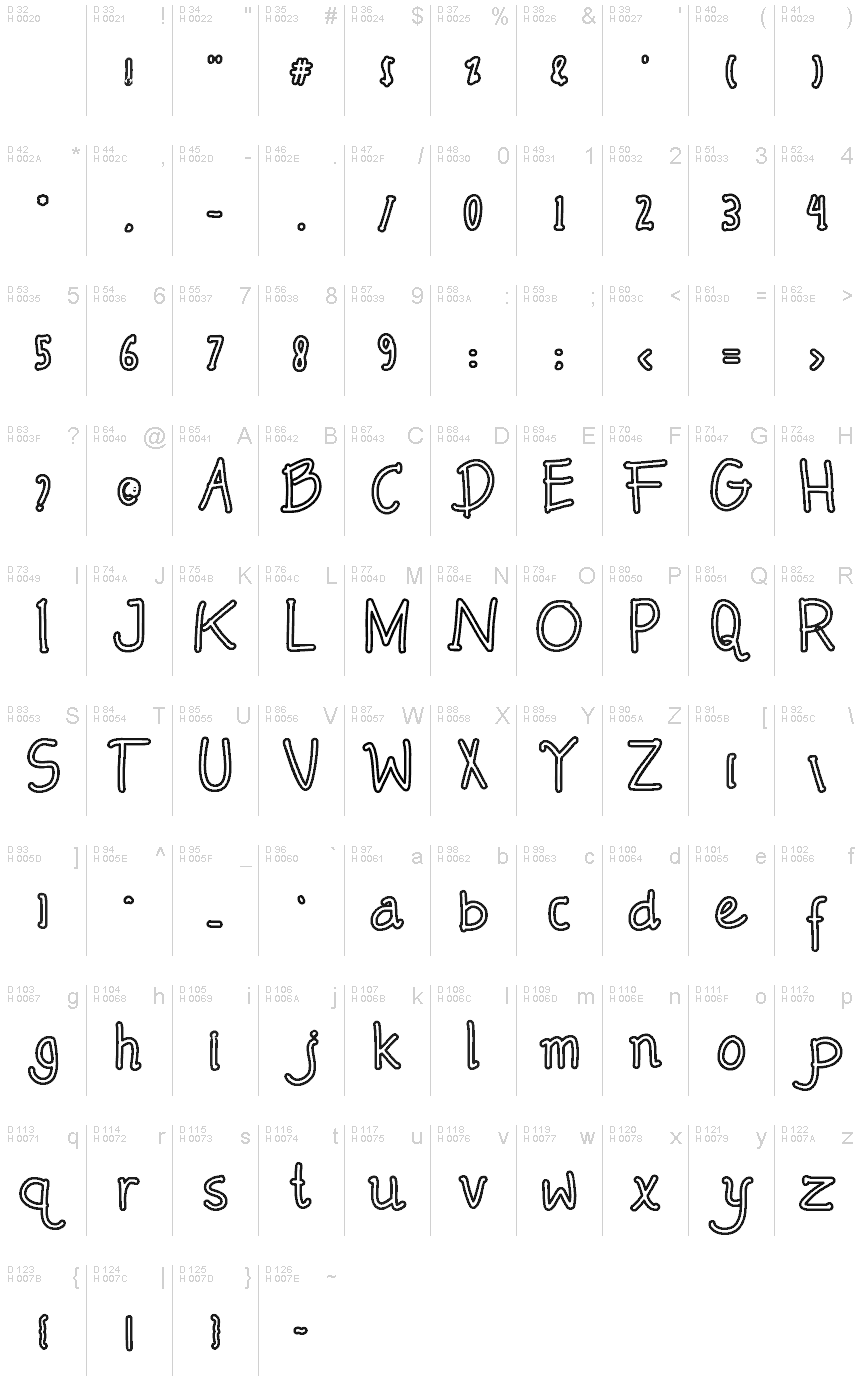
Mendowan
Mendowan is a captivating handwritten font that exudes a playful and organic essence. The outlined style adds depth and visual interest, creating a striking contrast against its smooth, flowing strokes. This font's unique character is exemplified by its variable line widths and the occasional overlapping of its letterforms, lending an imperfect yet charming quality to the design.
Mendowan's versatility shines in a variety of applications, from playful branding and packaging design to elegant stationery and invitations. Its informal, handcrafted aesthetic lends itself beautifully to projects that seek to convey a sense of warmth, authenticity, and personal touch. Whether used as a headline, subheading, or accent, Mendowan's expressive nature is sure to captivate and engage audiences.